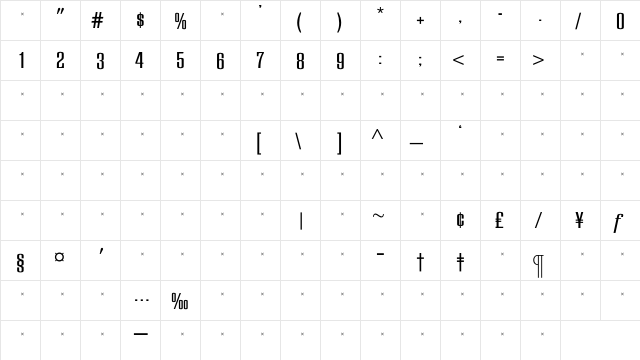
EuropaGrotesqueMediumTab Regular Font Preview
EuropaGrotesqueMediumTab Regular
Design Context for EuropaGrotesqueMediumTab Typeface
EuropaGrotesqueMediumTab takes a measured approach to typography — its balanced proportions and neutral character make it a reliable workhorse for both digital and print work.